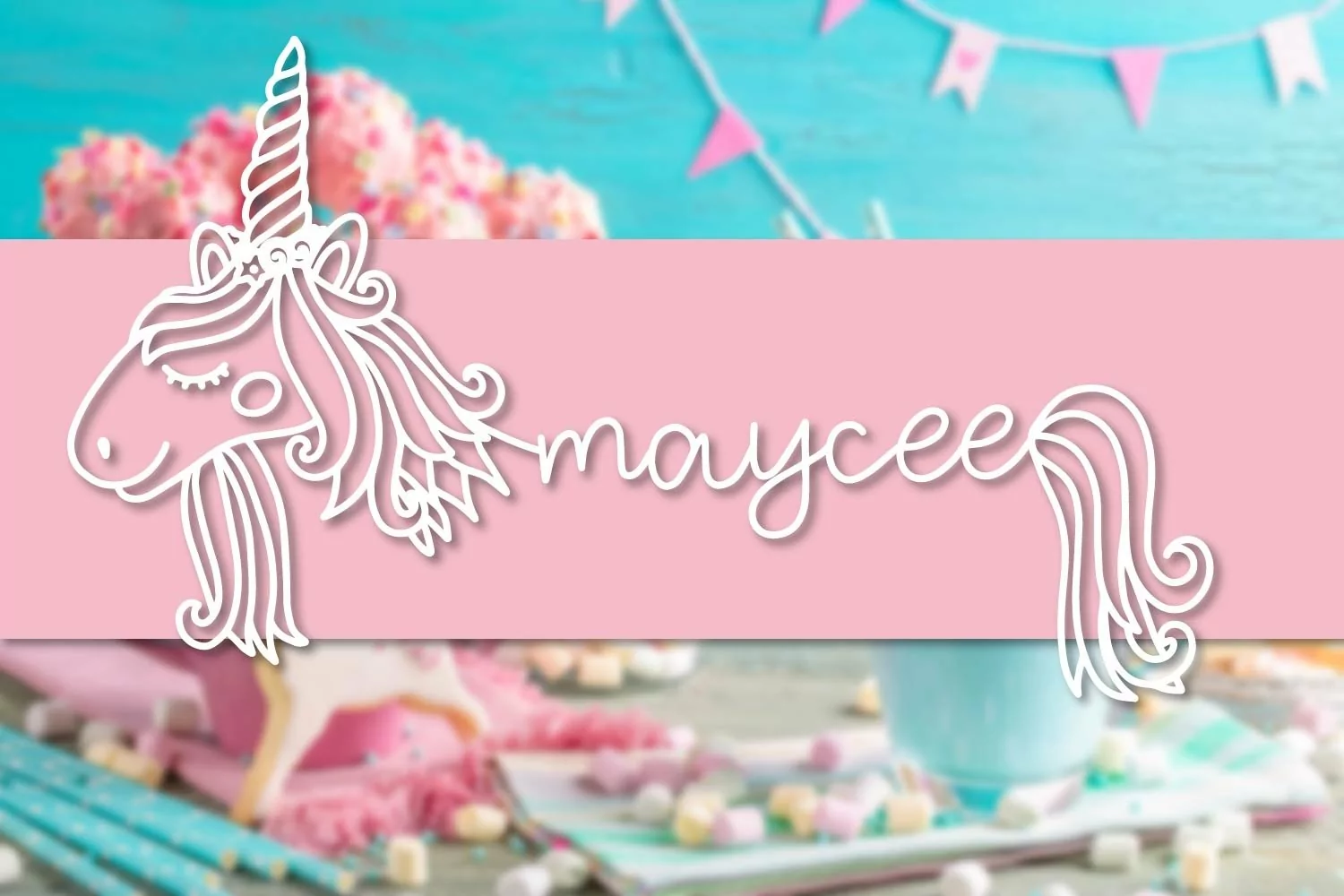
Unicorns - A Unicorn Name Maker Font
This font is a simple lower case font with a unicorn head and tale on the parenthesis ()
This way, you can create a cute, customized name!
For example (laura) (jenny) (sally) would create the unicorn effect. :)